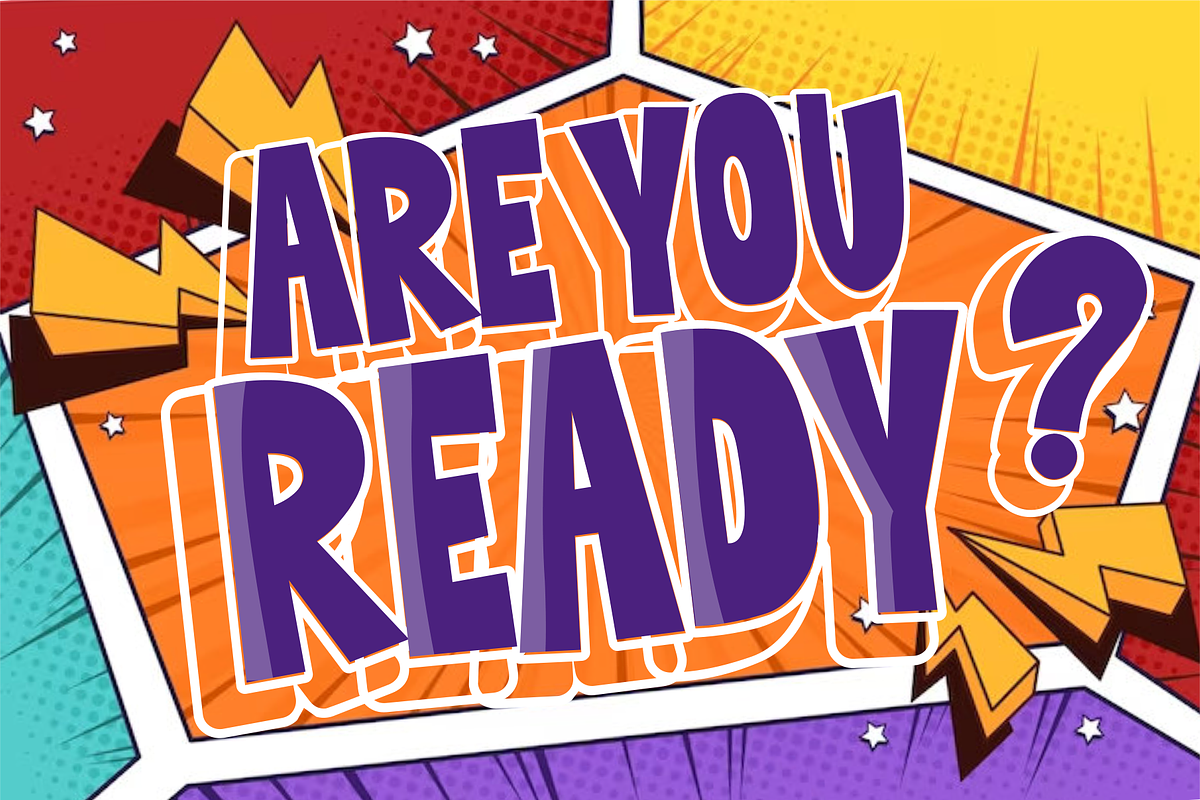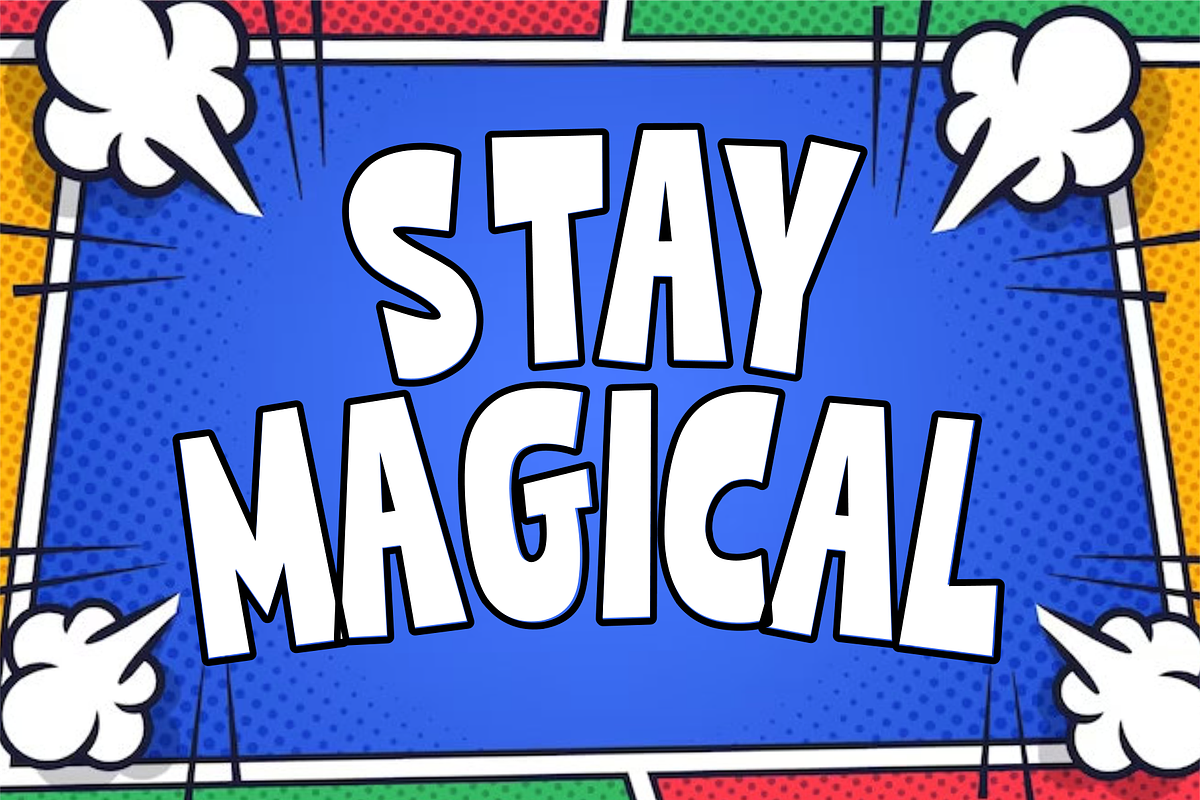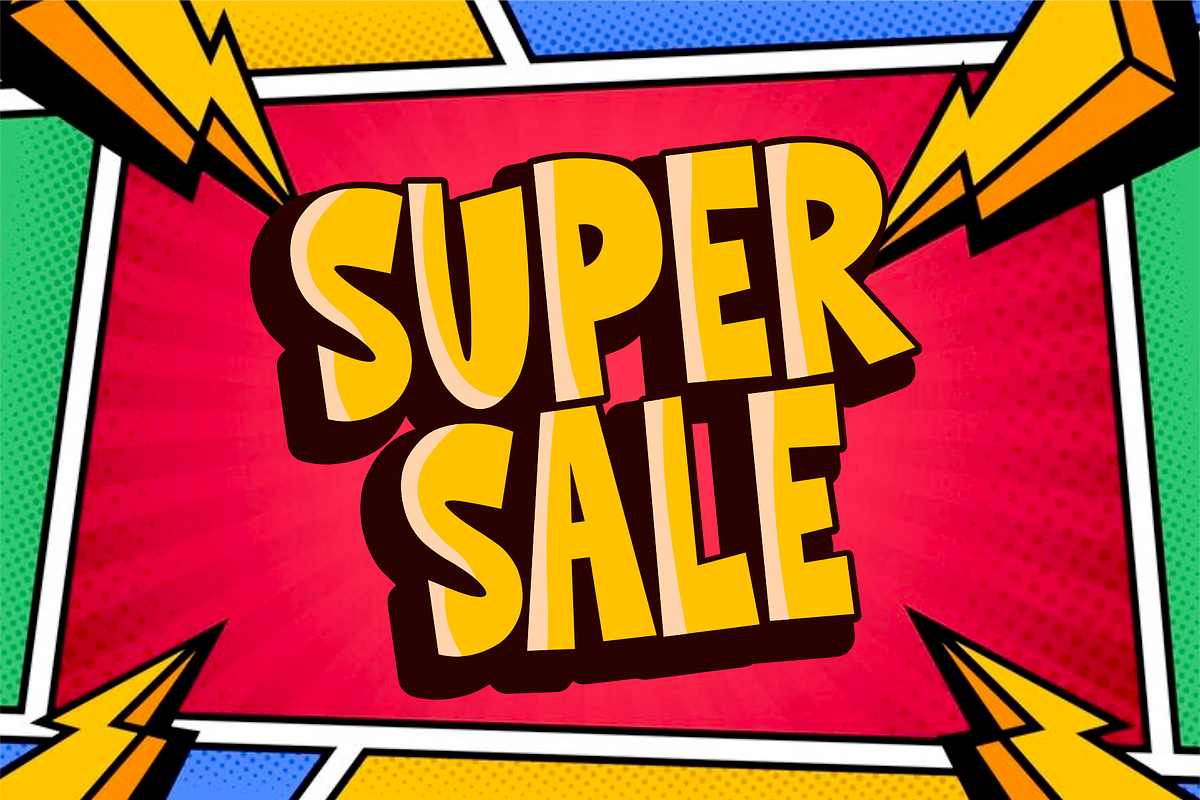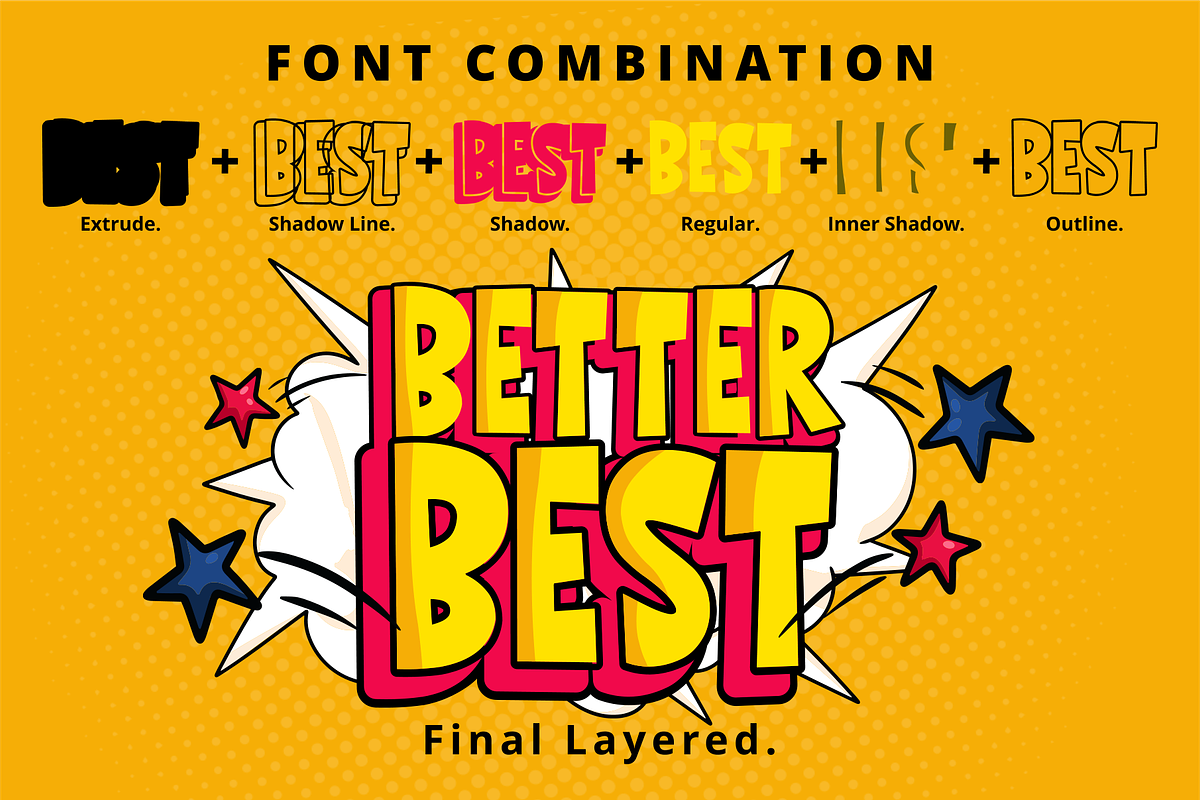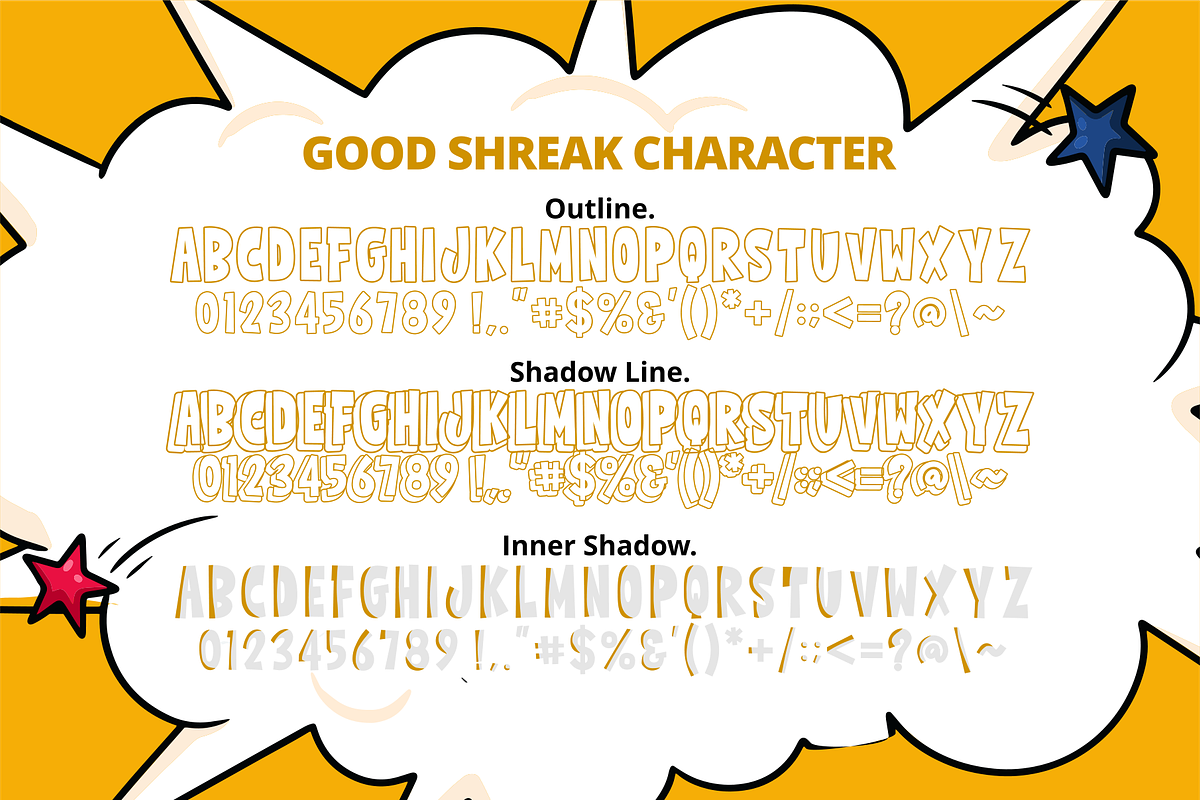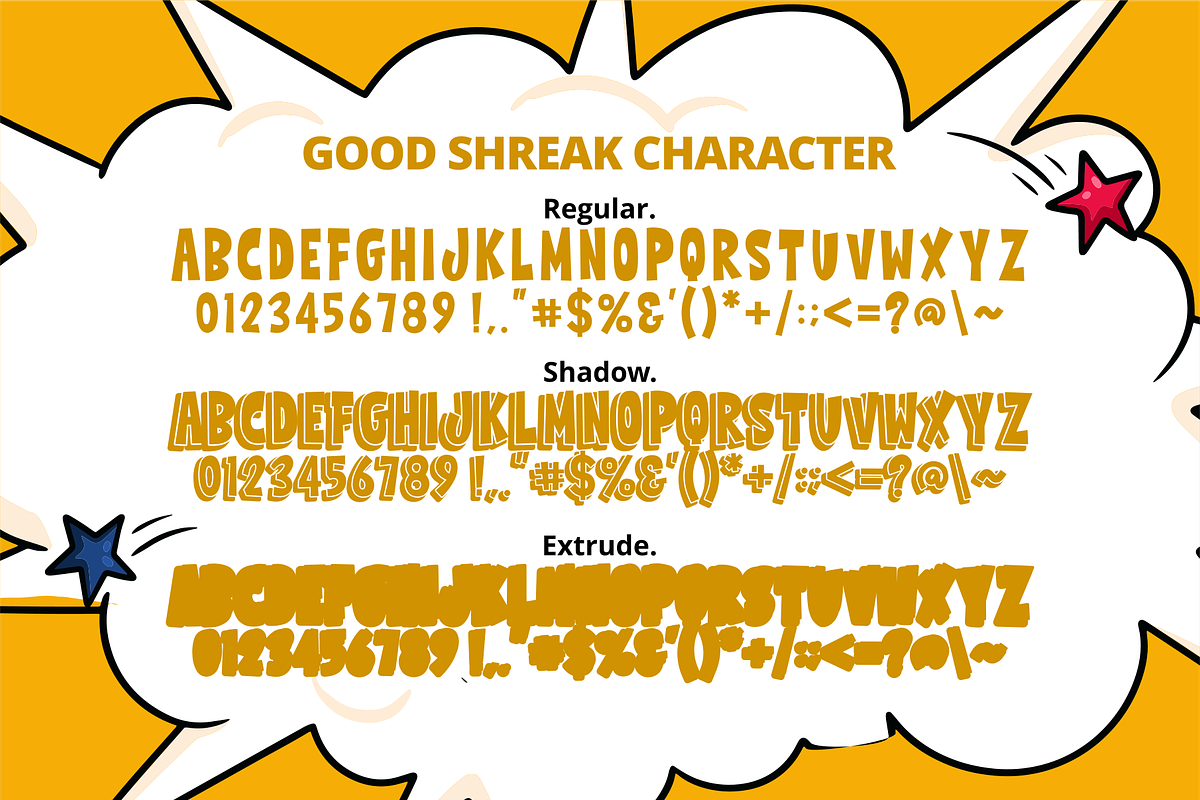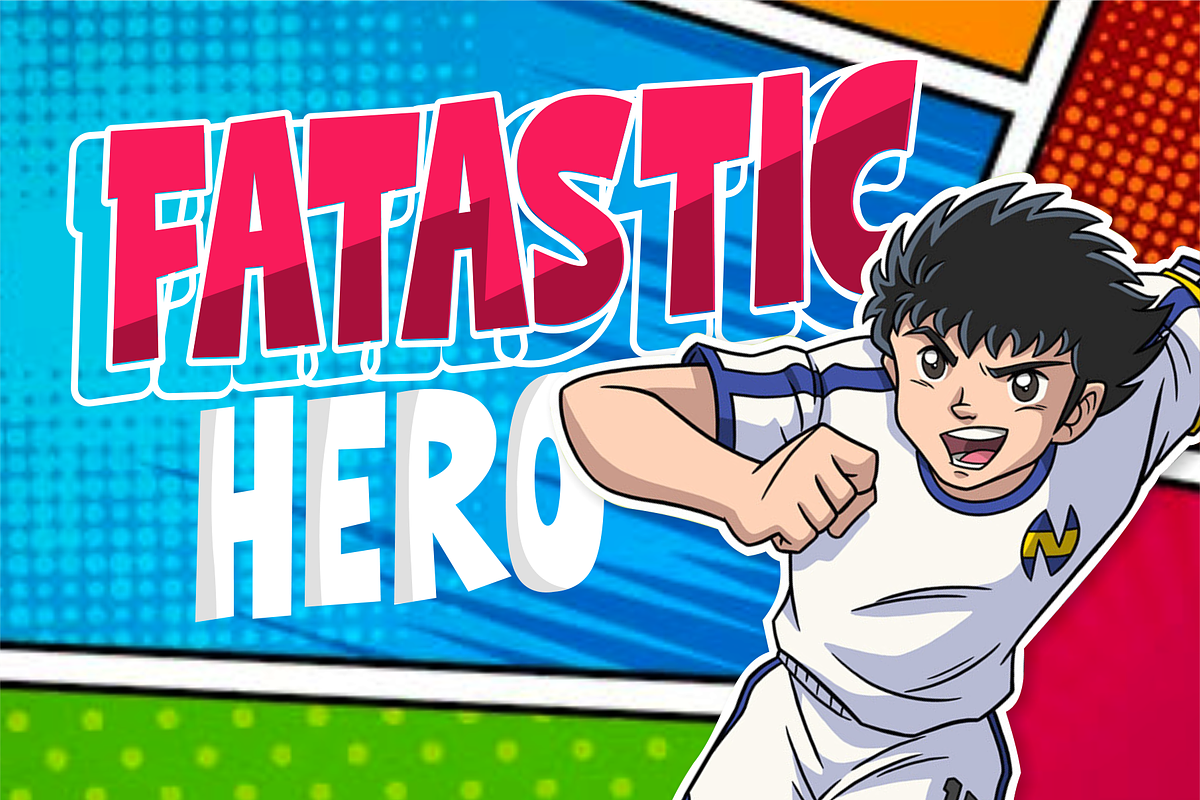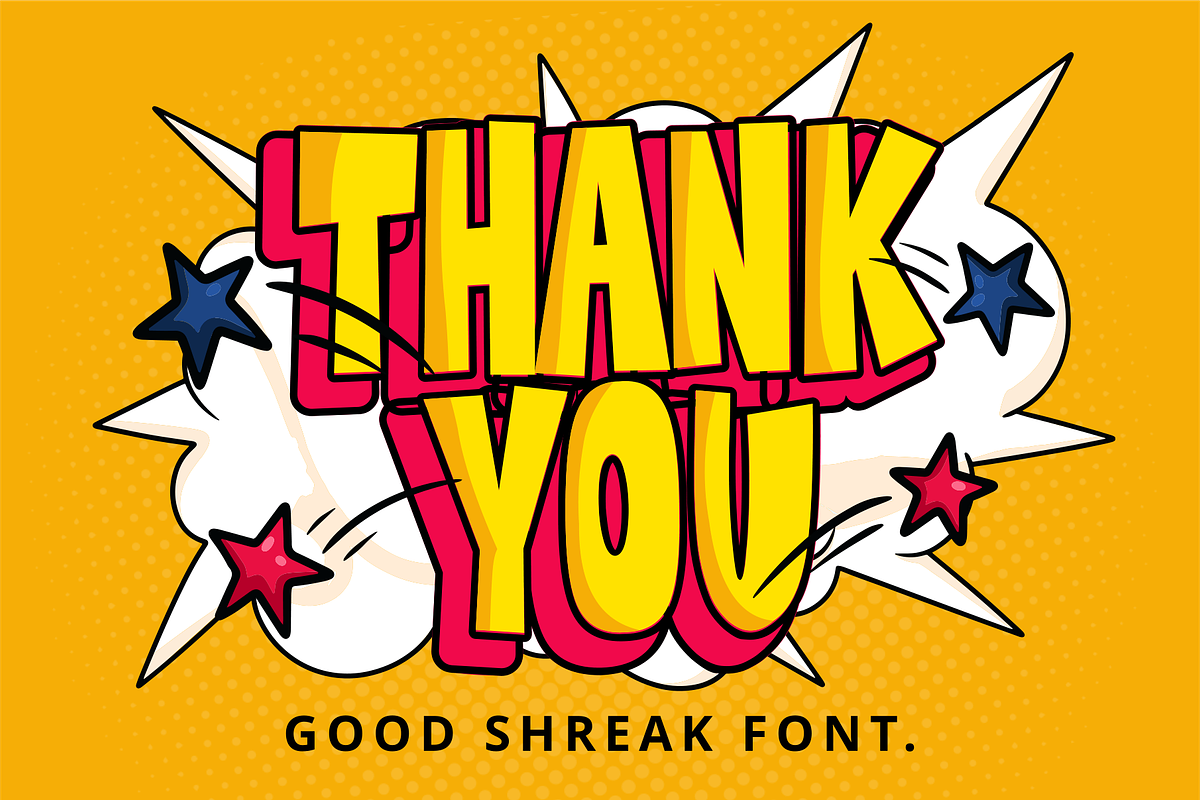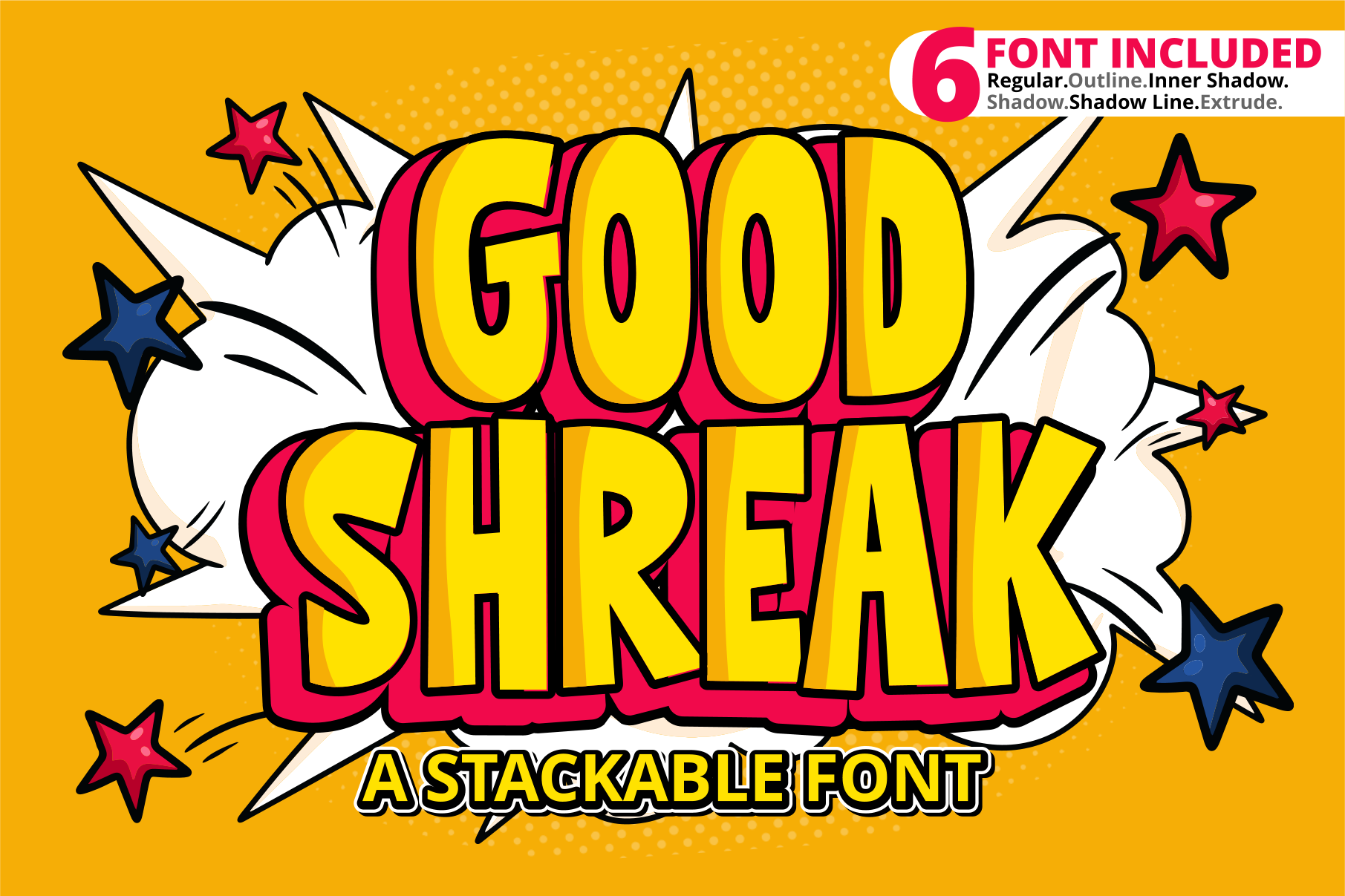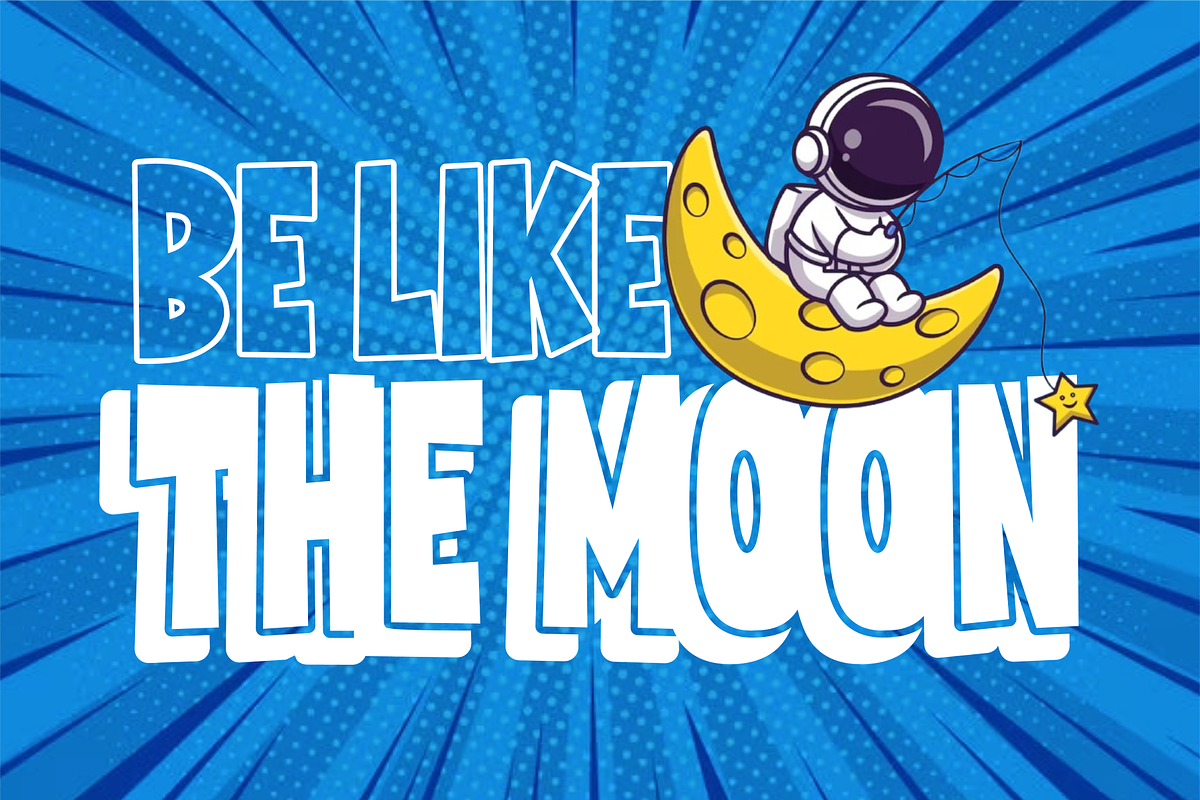
Good Shreak Font
Good Shreak is a cool and friendly display font. six font included (Regular.Outline.Inner Shadow.Shadow.Shadow Line.Extrude.) Whether you are using it for cartoon-related designs, children’s games, quotes, titles, brand names, book covers, posters, or just any creation that requires a touch of joy, this font is a great choice.
- All Uppercase
- Punctuation & Symbols